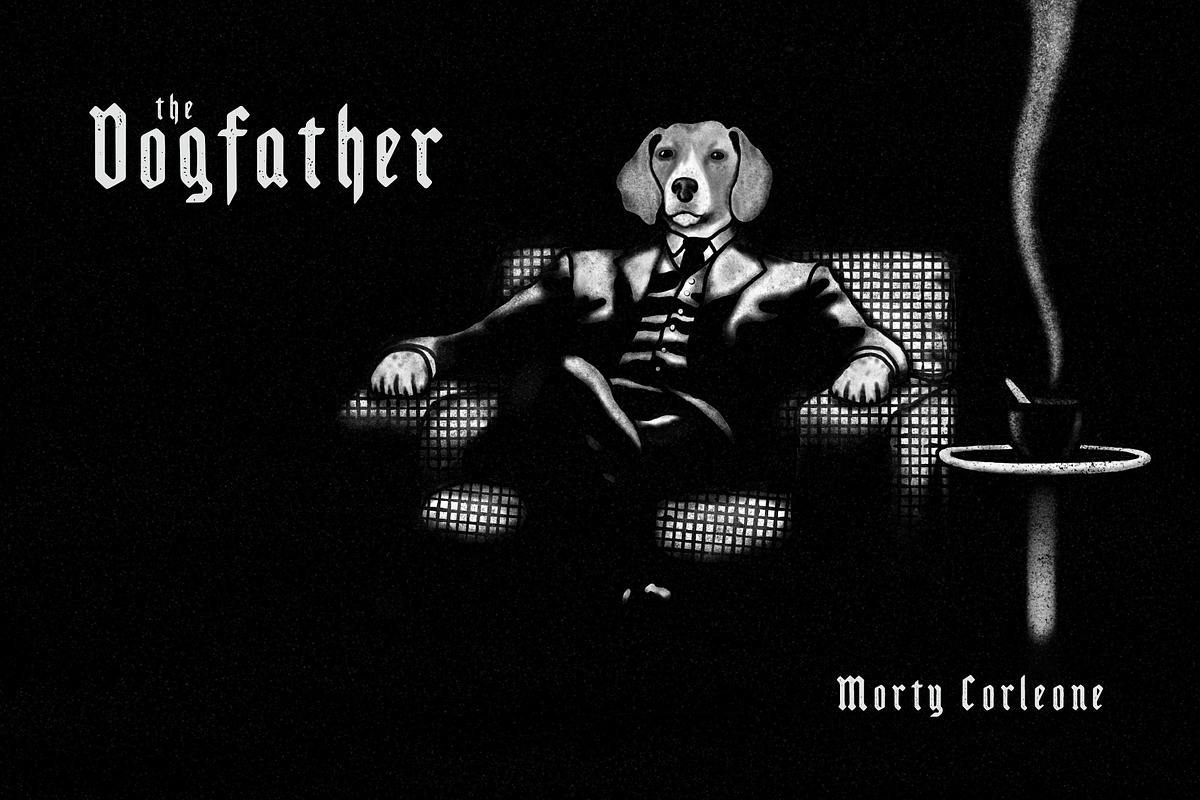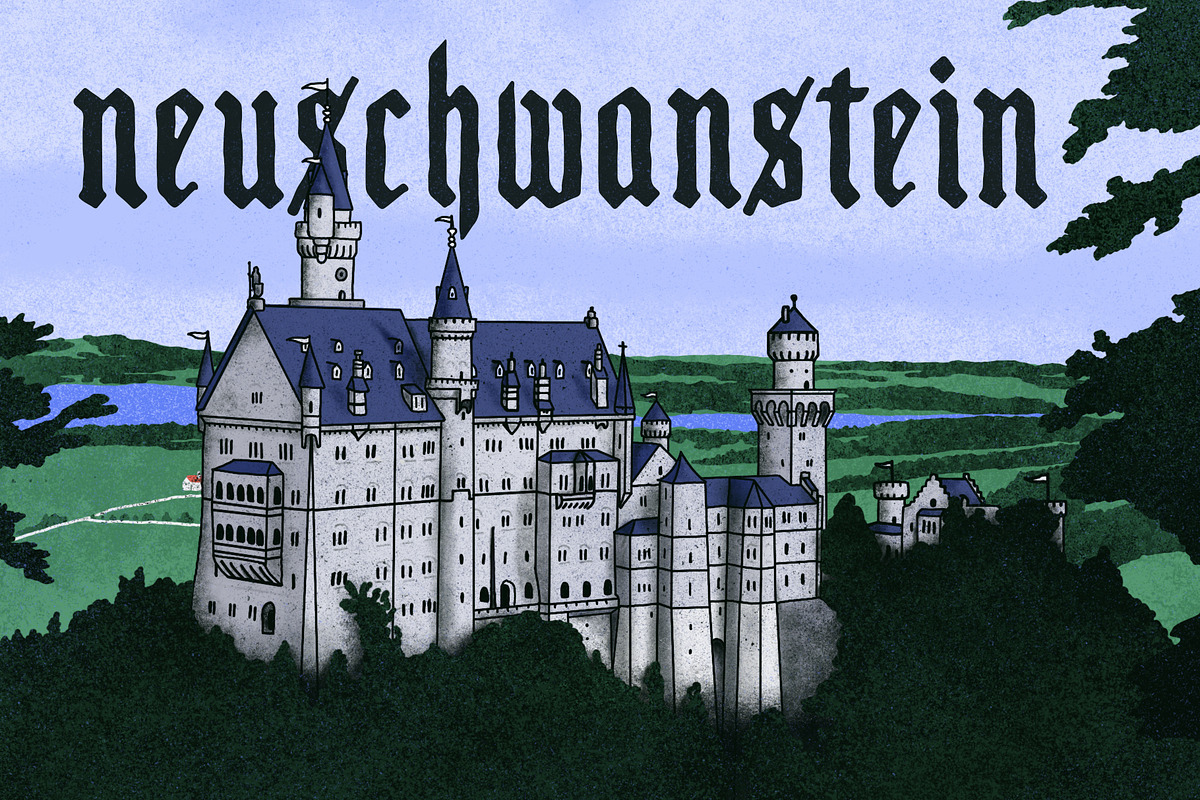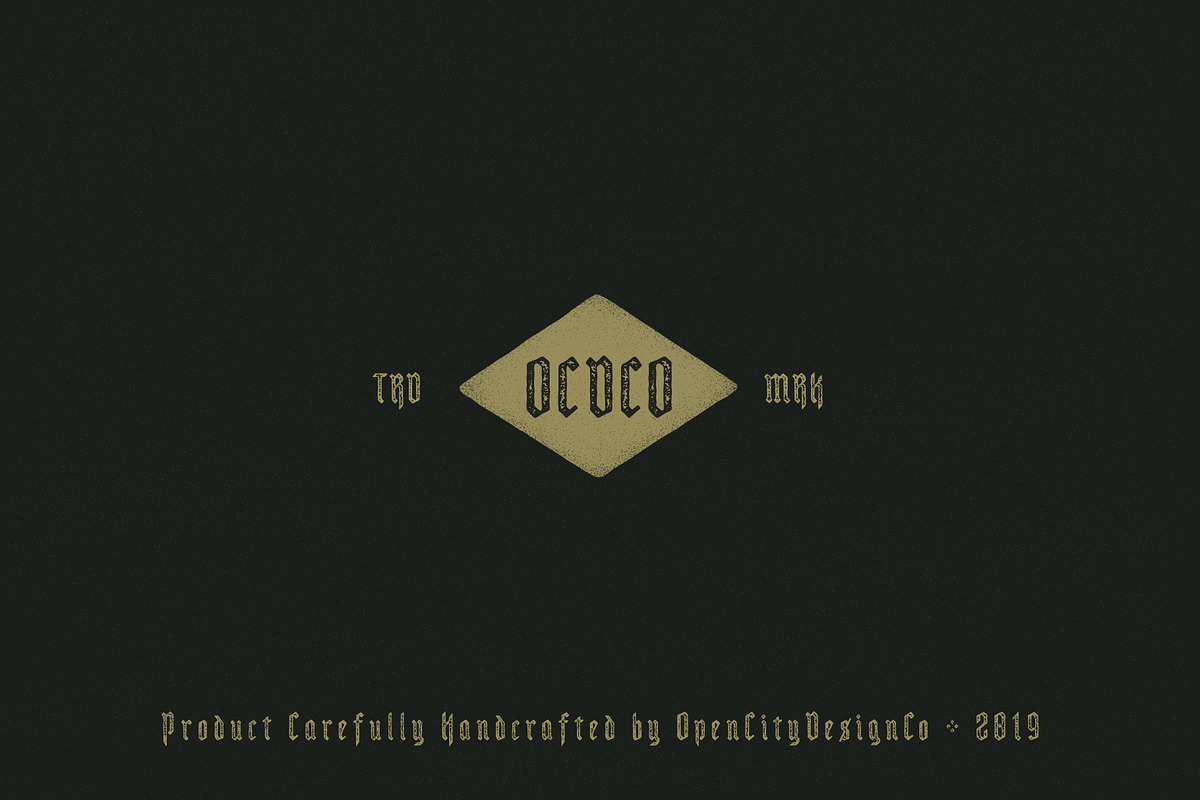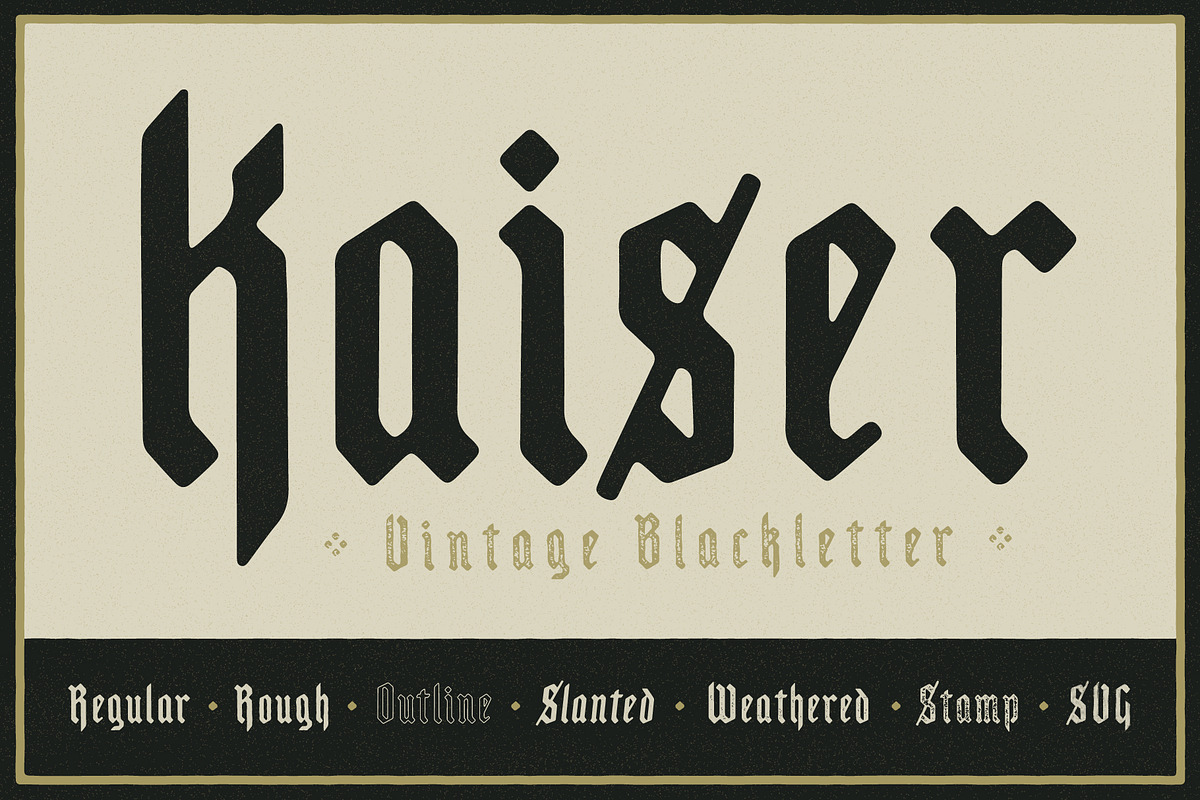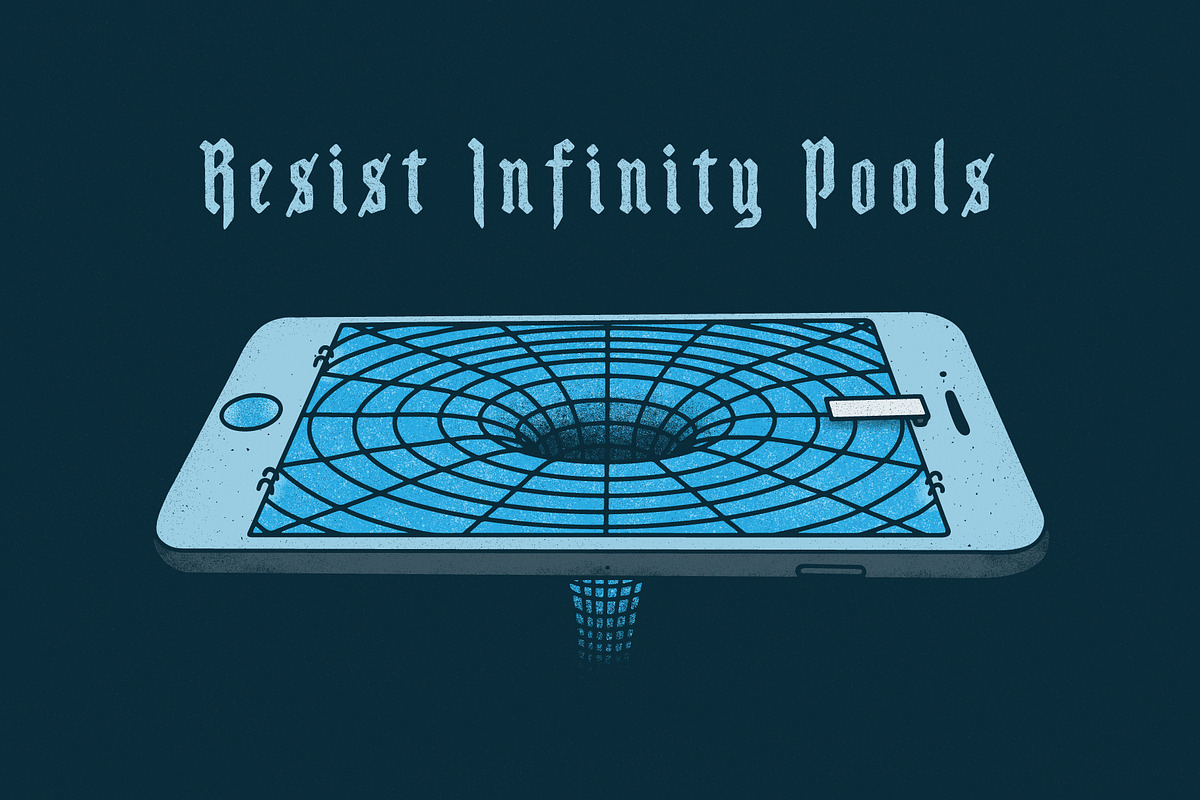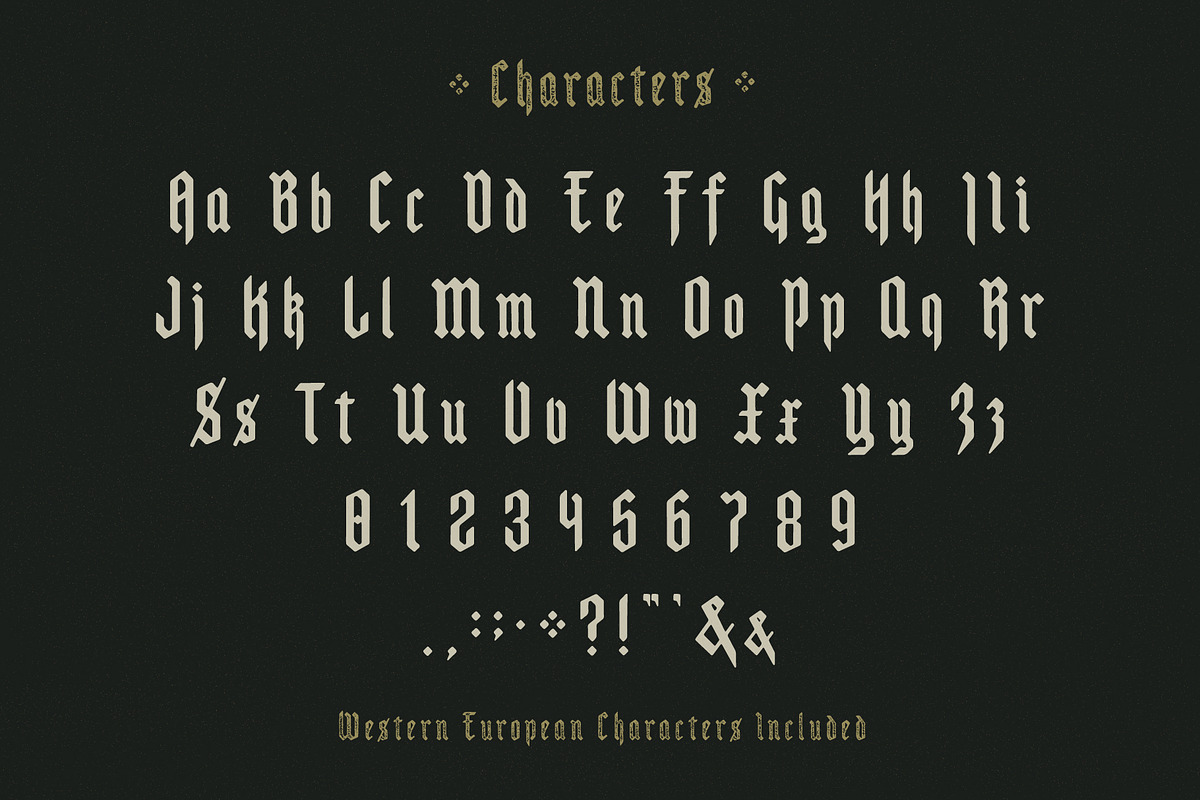
Kaiser - Vintage Blackletter
Presenting: Kaiser - Vintage Blackletter
Kaiser is a handcrafted vintage blackletter that comes in 6 styles. It is inspired by German poster art of the First World War.